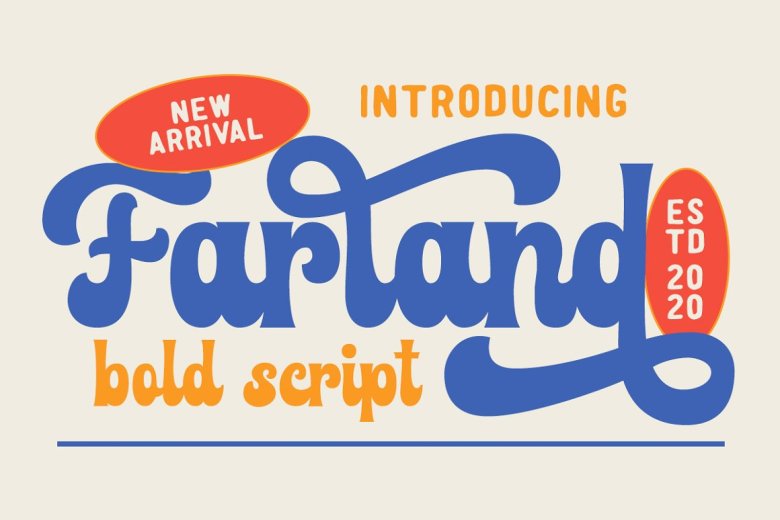
Farland Font
Farland Bold Script Font, designed by Rillatype is a standout bold script with a touch of nostalgic look and feel. Inspired by 50s 60s signages, this font made to bring back the good ol’ days. This type of font perfectly made to be applied especially in logo, headline, signage and the other various formal forms such as invitations, labels, logos, magazines, books, greeting / wedding cards, packaging, fashion, make up, stationery, novels, labels or any type of advertising purpose.
Farland Script Font